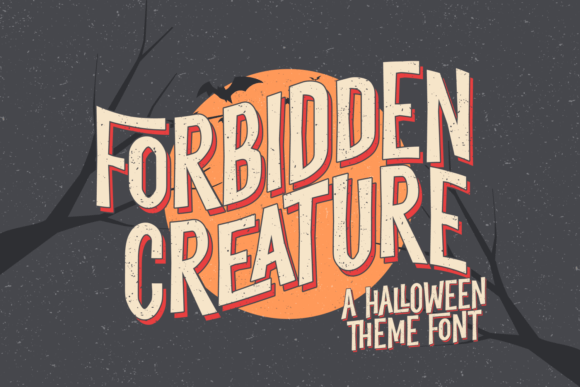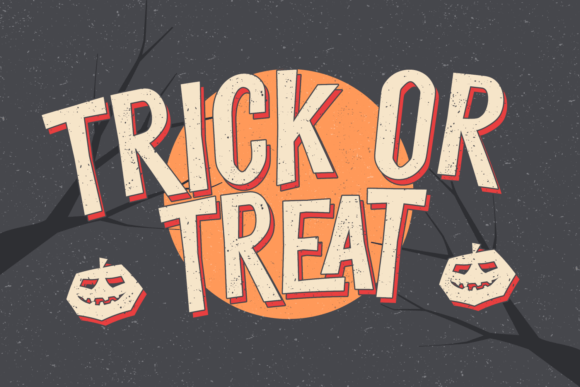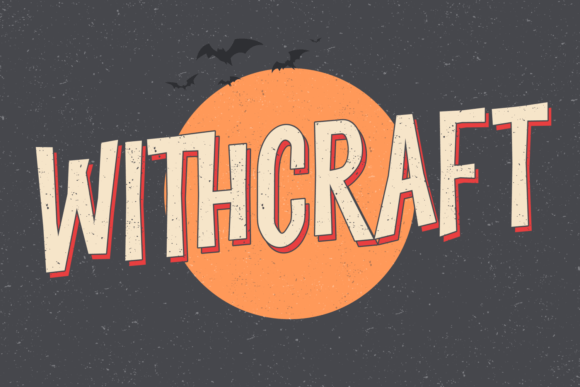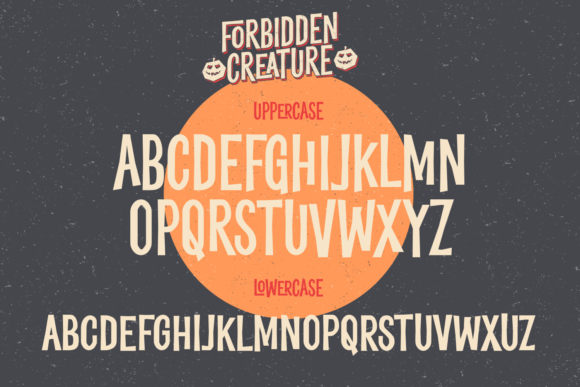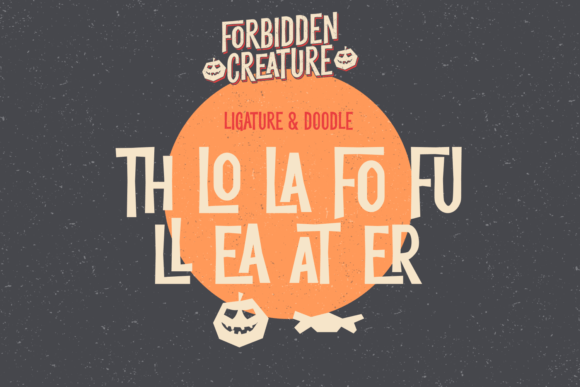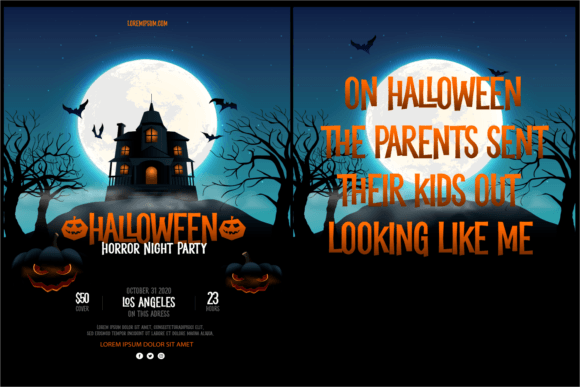
This playful display font is a game-changer for designers looking to add a bit of whimsy and fun to their designs. With its unique style, the Forbidden Creature Font is perfect for grabbing attention and adding character to your text. Whether you’re working on a project for a client or just experimenting with new ideas, this font is sure to bring a smile to your face and a touch of magic to your designs.
Forbidden Creature Font Key Features
- Font Family: Forbidden Creature is a unique, hand-drawn font designed for creative projects.
- Unique Characteristics: Features a mix of organic and geometric elements, creating a striking and eye-catching visual effect.
- Characters: Includes a wide range of characters, including uppercase and lowercase letters, numbers, punctuation, and special characters.
Forbidden Creature Font Review
Overall, I think the Forbidden Creature Font has some interesting and unique aspects. ✨ One of the things I like about it is the blend of mystical and medieval elements. The font’s bold and dynamic feel is reminiscent of ancient, mysterious texts.
- ✨ The font’s bold and dynamic feel, perfect for titles and headings.
- ✨ The blend of mystical and medieval elements adds a unique touch.
- ✨ The font is highly customizable, allowing for a wide range of color options.
However, there are some limitations:
- ⚠️ The font may not be suitable for body text due to its bold and dynamic feel, which can be overwhelming.
- ⚠️ Some of the characters may not be fully compatible with certain operating systems or devices.
- ⚠️ The font’s complexity may make it difficult to use in certain design scenarios.
Overall, I think the Forbidden Creature Font is a great choice for designers who want to add a touch of mystery and intrigue to their projects. However, it’s not suitable for every design scenario, and designers should be aware of its limitations.
To get the most out of the Forbidden Creature Font, try the following:
1. Use it sparingly to add a touch of mystery to your designs.
2. Pair it with other unique fonts to create a striking combination.
3. Experiment with different text styles and effects to enhance the font’s mystique.
The Forbidden Creature Font is ideal for:
1. Horror-themed designs and projects.
2. Fantasy and sci-fi illustrations and graphics.
3. Mystical and supernatural-themed branding and marketing materials.